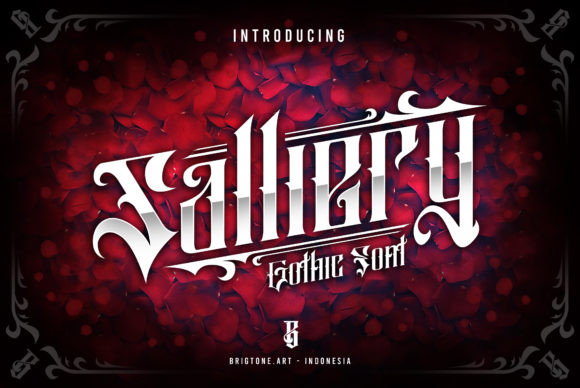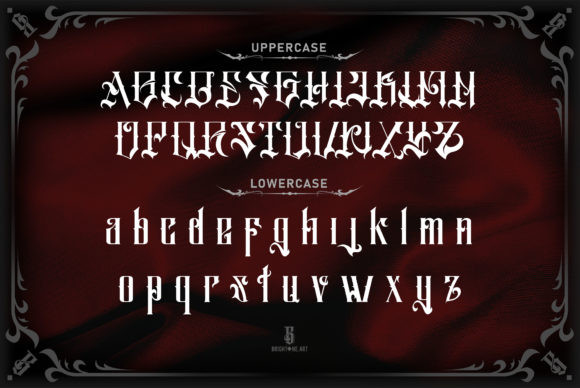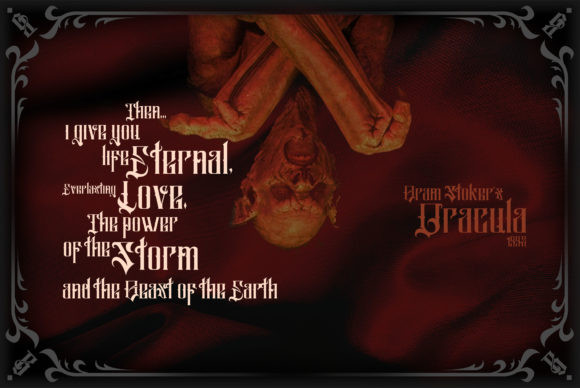
Salliery Font
Salliery is a bold and authentic blackletter font. This font is neatly crafted and highly detailed. Add the assertive Rogusta to your formal designs and notice how they instantly stand out.